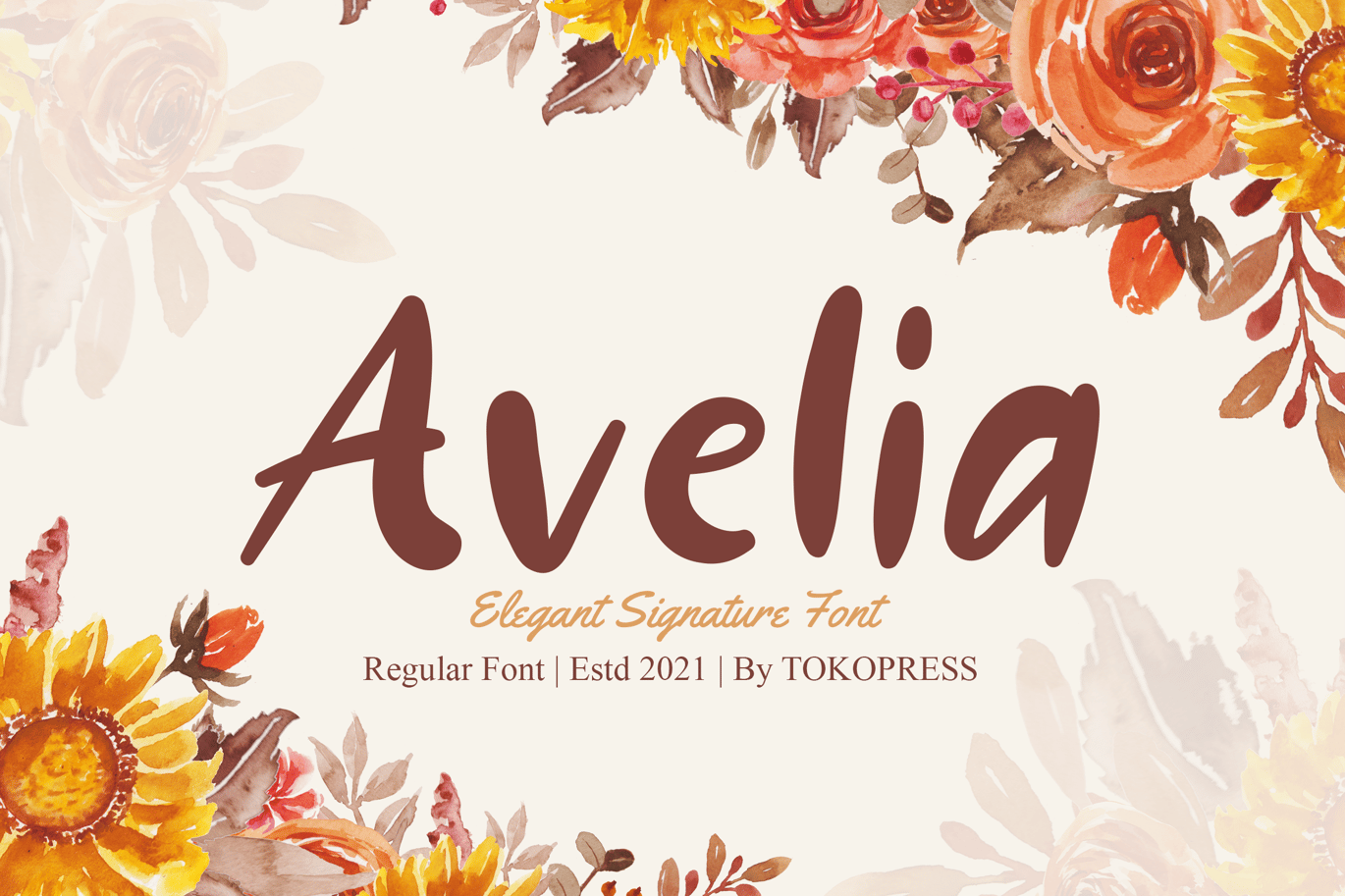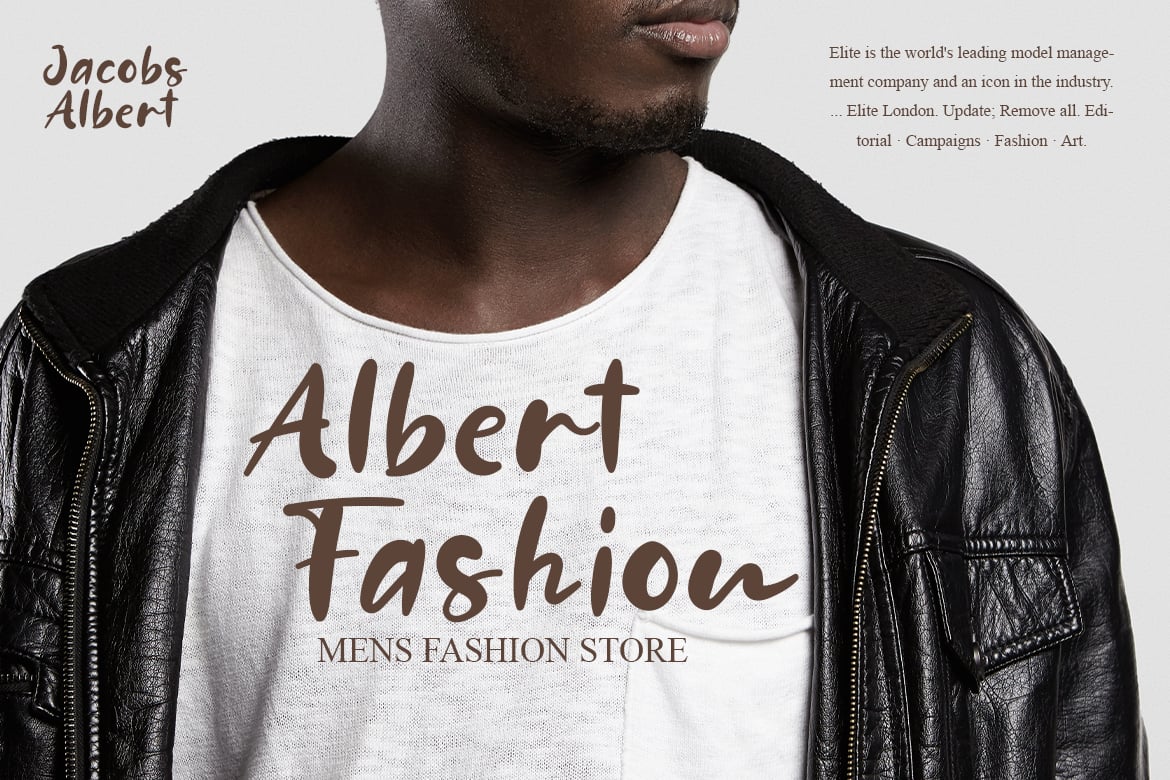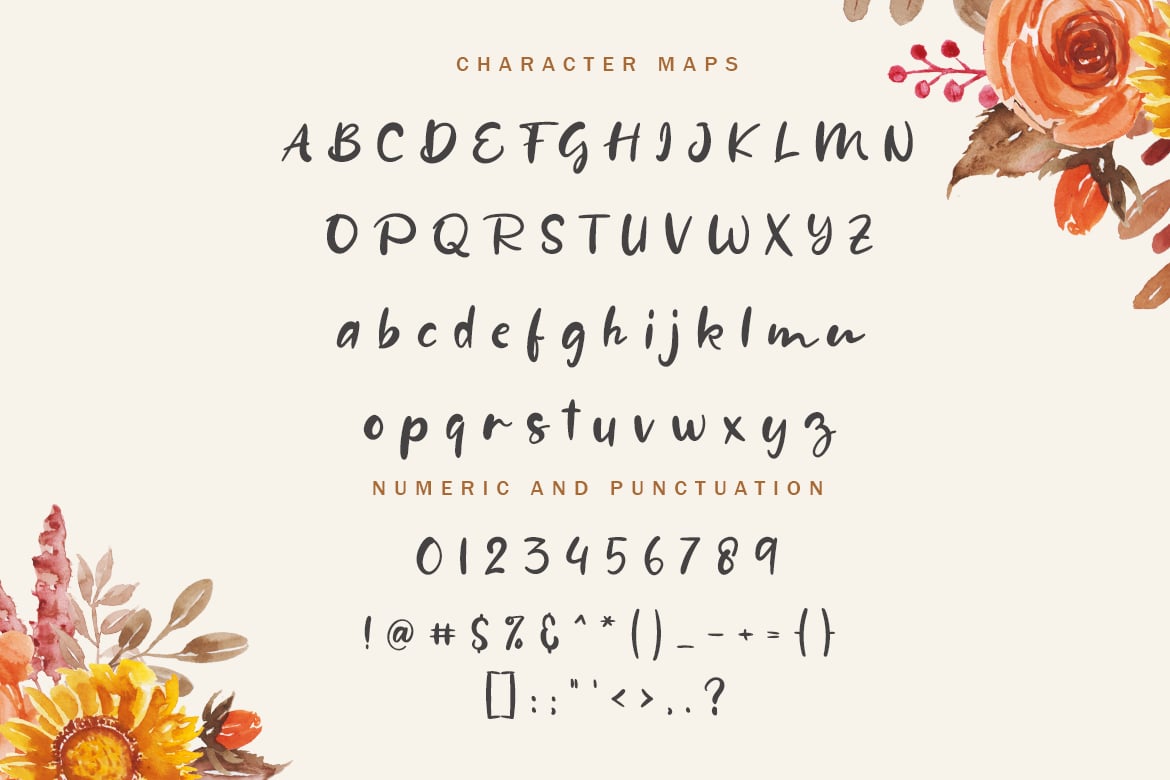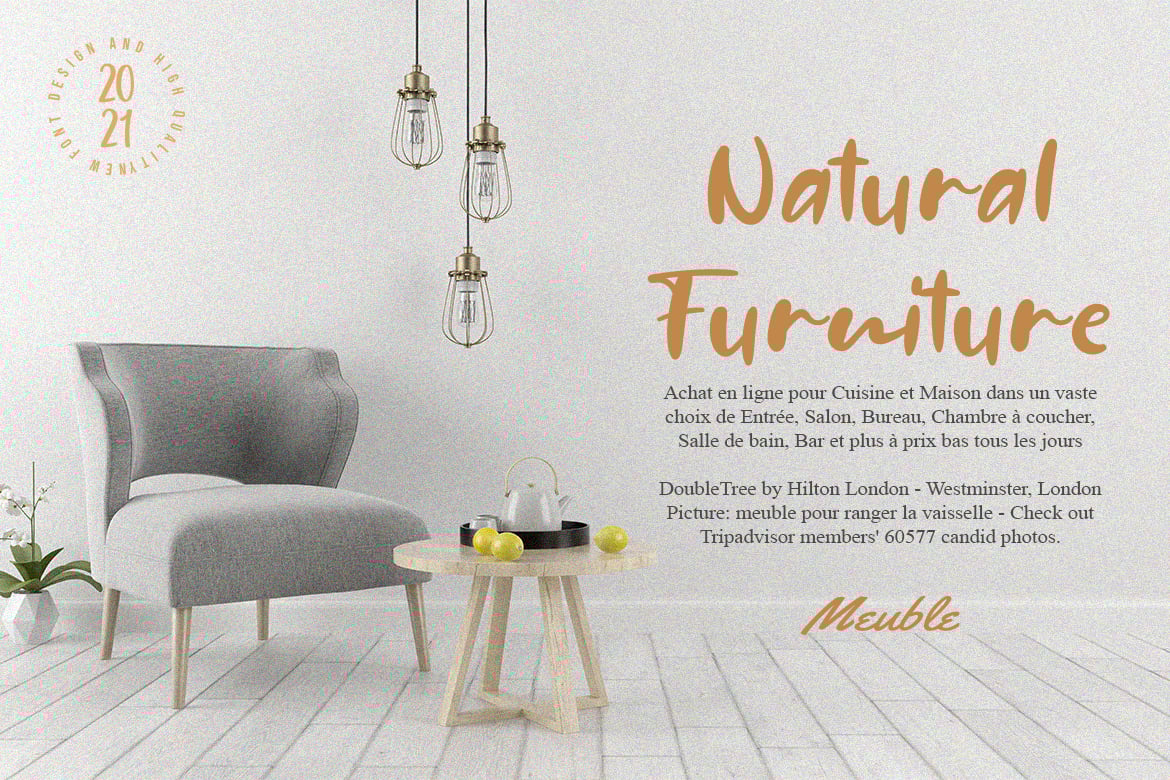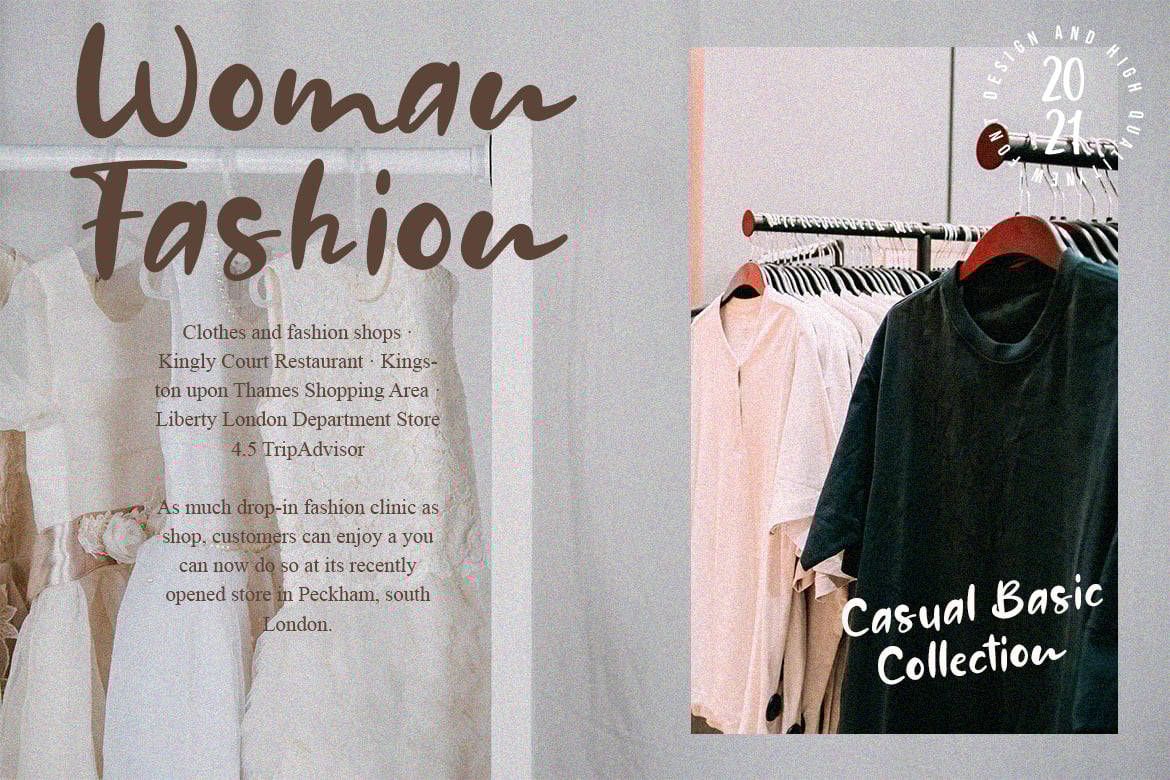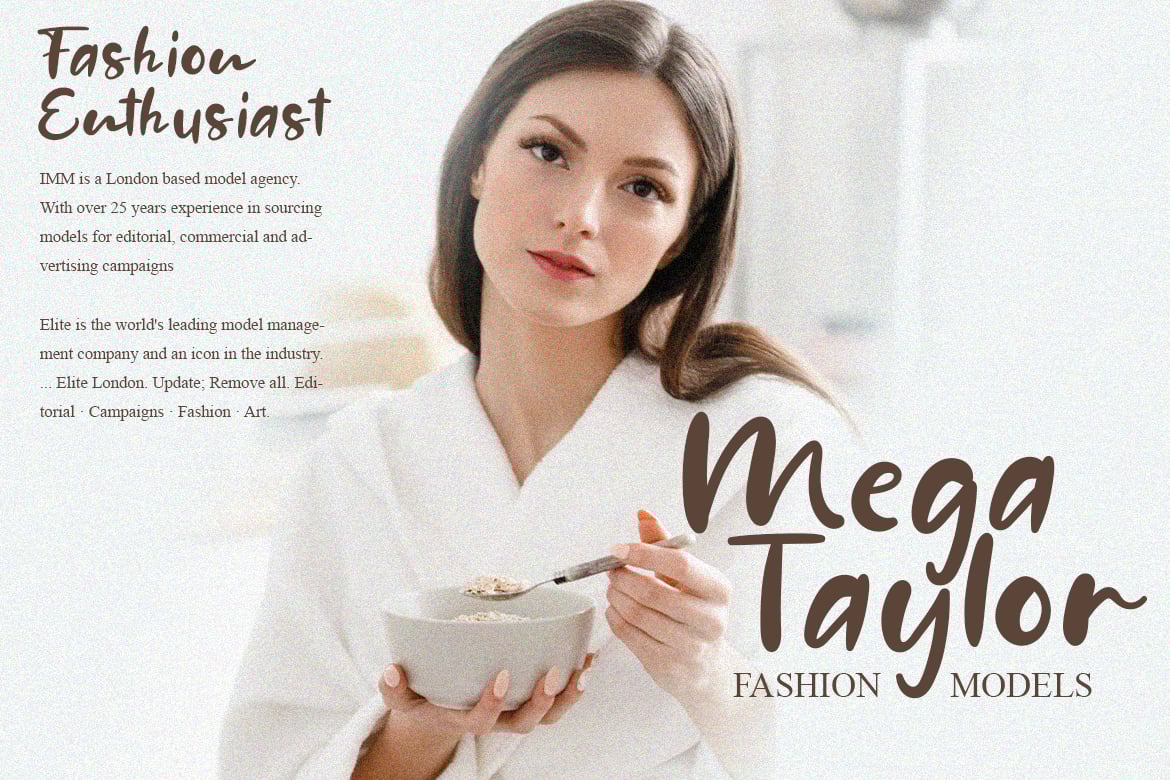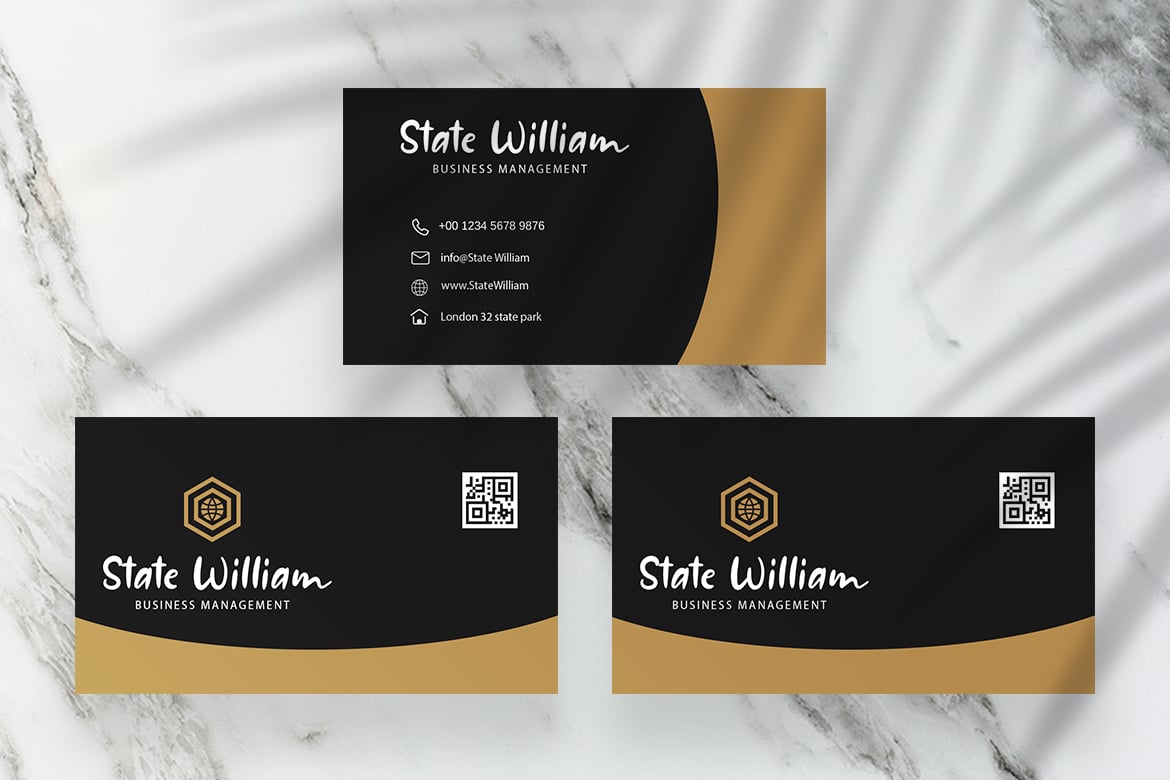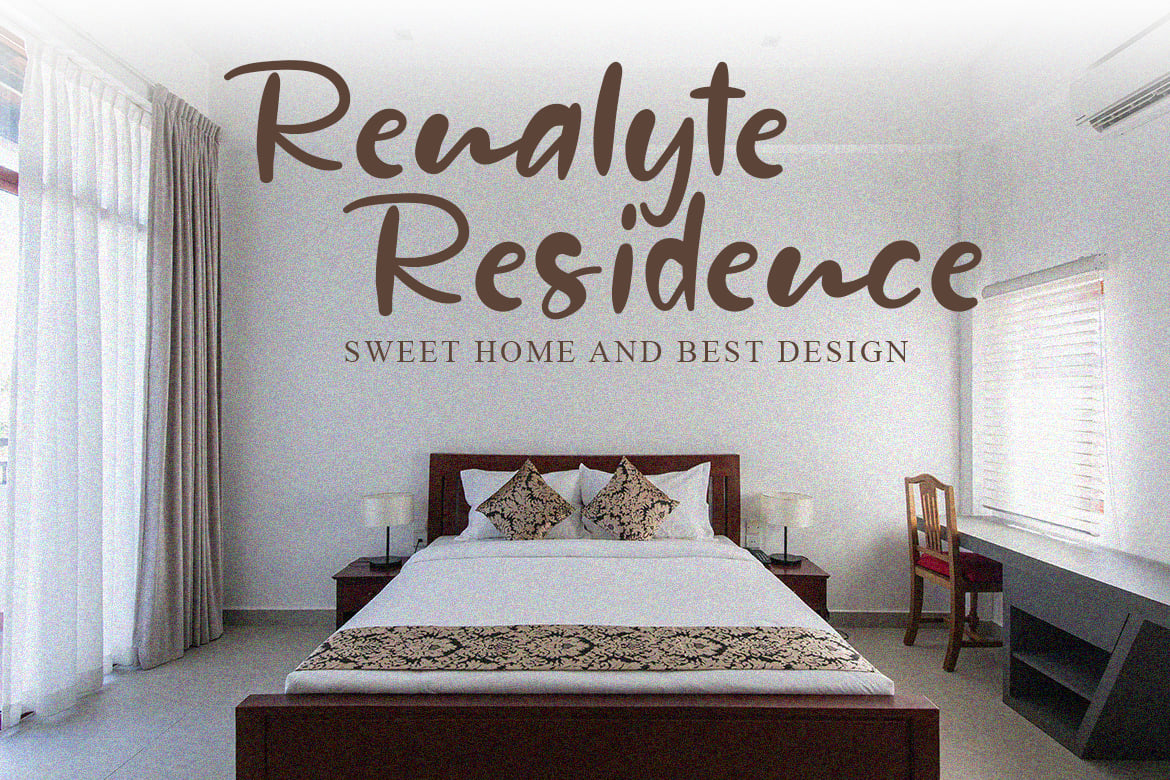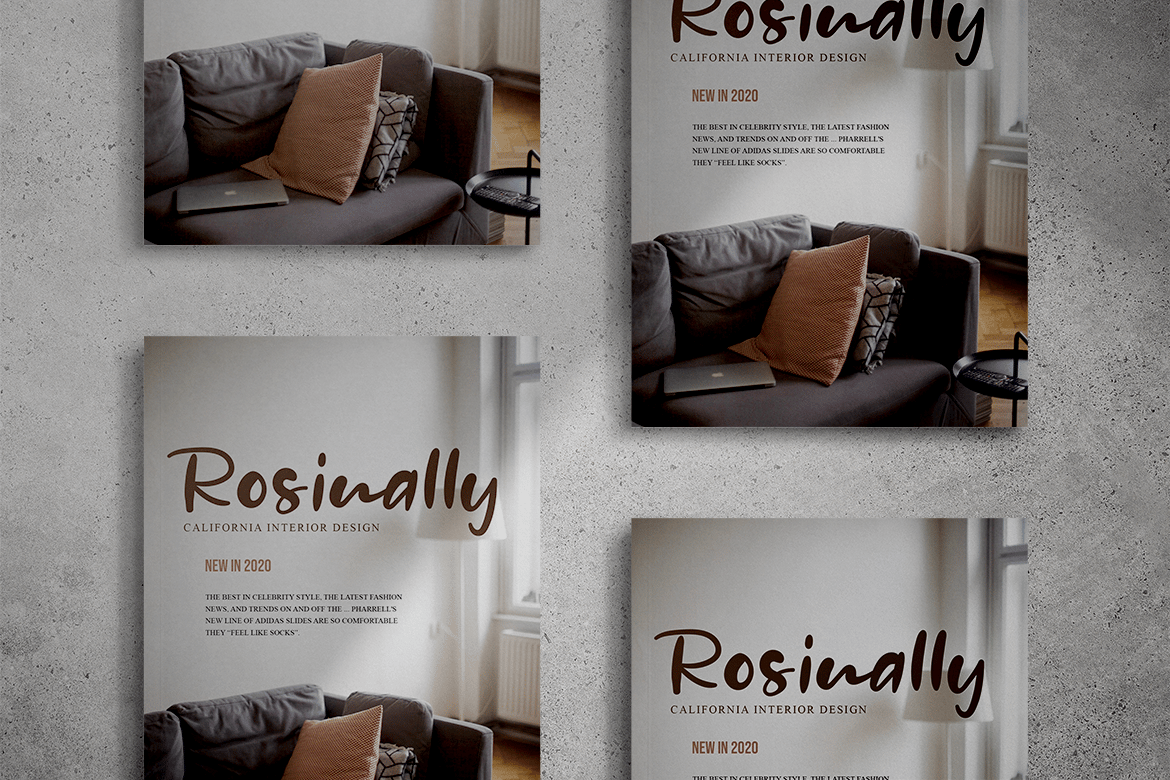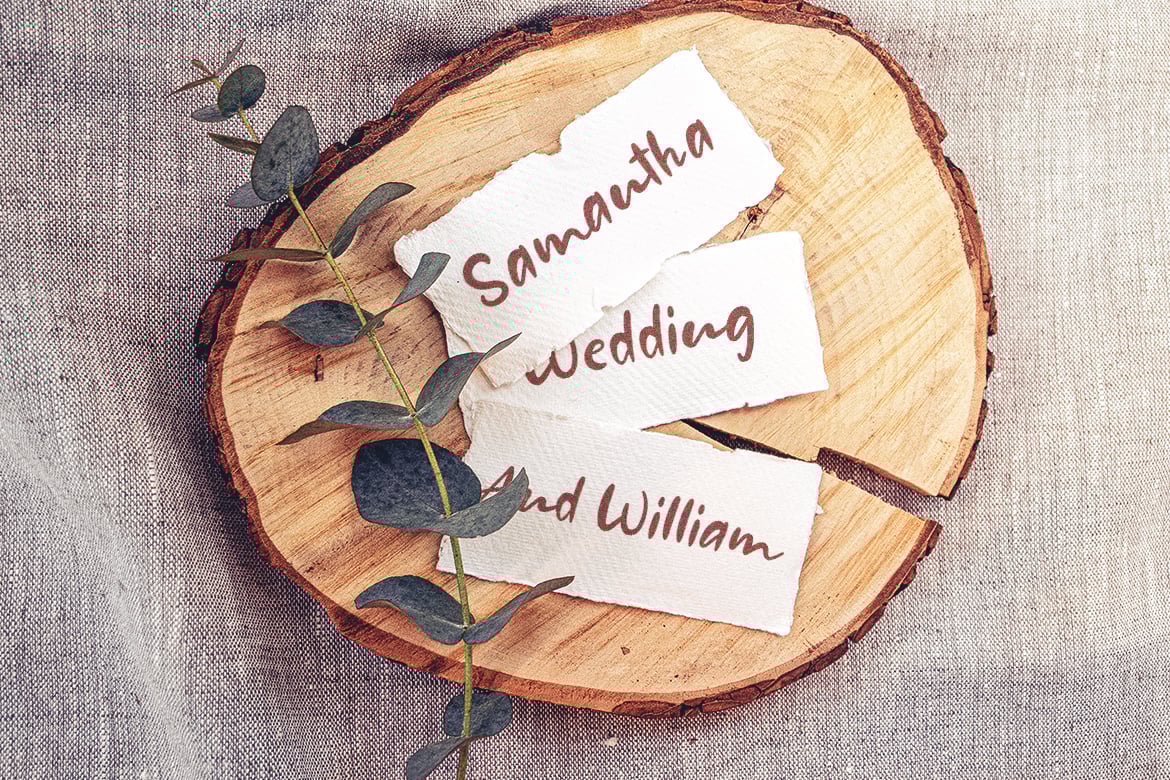
Avelia – Girly handwriting font
Girly font is never get boring. The dynamic and cheerful shape bring a lot of happiness all over it.
Suit perfectly for girl/ female market, stationary, t-shirt and school supplies font, poster, movie title, youtube covers, youtube thumbnails, social media page covers and so on…